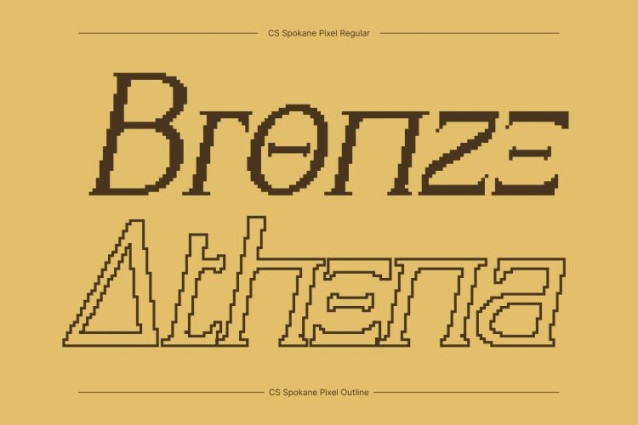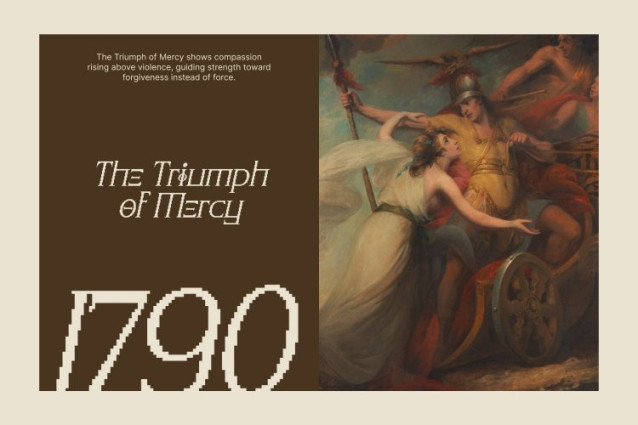
CS Spokane Pixel Font
CS Spokane Pixel Font This is a refined serif display font inspired by the sculptural beauty of ancient Greek design, enhanced with subtle pixel detailing. Its chiseled serifs and balanced proportions echo classical architecture, while crisp digital precision introduces a modern sensibility. The result is typography that feels cultured, poised, and distinctly contemporary.
Ancient Influence with Contemporary Pixel Clarity
Drawing from the grandeur of Greek inscriptions, this font merges historical gravitas with clean, structured refinement. The sculpted letterforms are complemented by gentle pixel accents that add sharpness and definition without compromising elegance. It communicates strength, intelligence, and sophistication with effortless clarity.
Graceful Structure with Lasting Presence
Each character is crafted with harmonious proportions and precise serif construction, creating a majestic visual rhythm. The subtle pixel nuance enhances readability and sharpens its display appeal, making it ideal for commanding headlines, refined branding, and editorial compositions that demand distinction.
Perfect for Luxury and Cultural Design
This font excels in luxury branding, museum identities, high-end editorials, book covers, and premium packaging. Its seamless fusion of classical heritage and modern pixel precision makes it a versatile choice for designers who seek timeless beauty expressed through structured, contemporary typography.